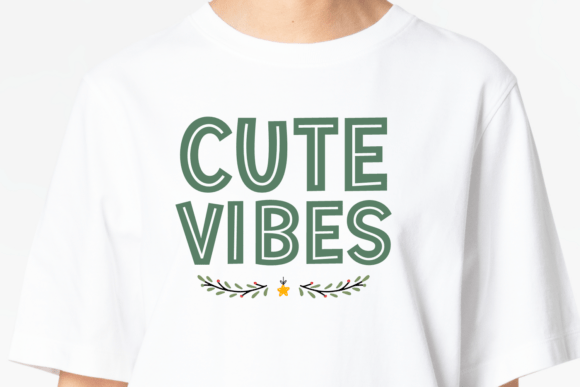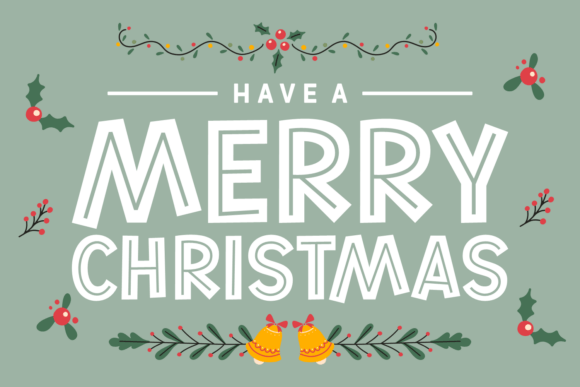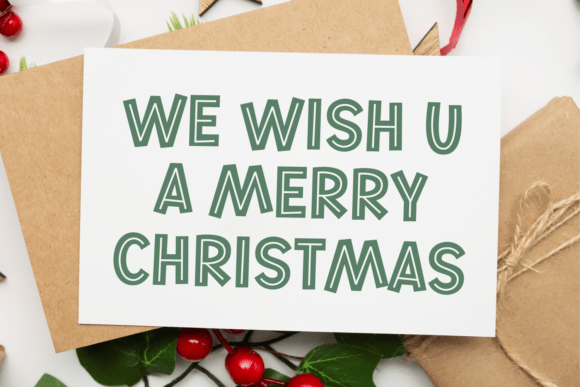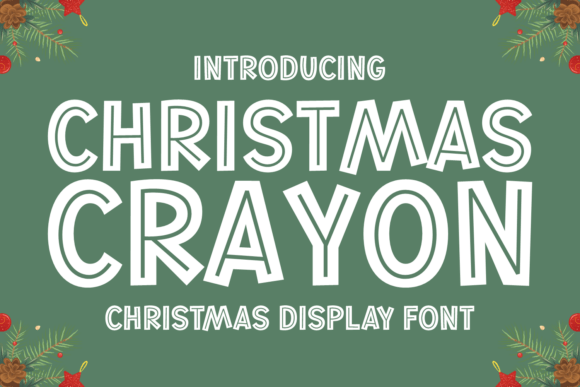
Introduction to Christmas Crayon Font
Presenting Christmas Crayon, a remarkably distinctive font that flawlessly weaves an aura of nature into its exclusive design.
This typographic wonder skillfully integrates verdant motifs into unique alphabets, creating a captivating fusion of elegance and organic appeal Christmas Crayon’s lively charm breathes a refreshing touch to your messages and artistic endeavors, making it an enchanting font for projects aiming to encapsulate nature’s enchantment and sophistication.
Key Features of Christmas Crayon Font